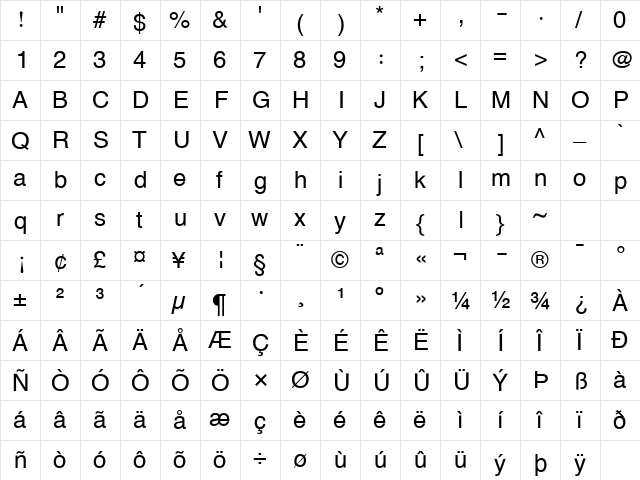
XB Zar Regular
| Foundry | Irmug.org |
| Designer | Behnam |
Design Context for XB Zar Typeface
XB Zar is a composed and adaptable typeface that performs quietly and consistently across a wide range of design contexts.